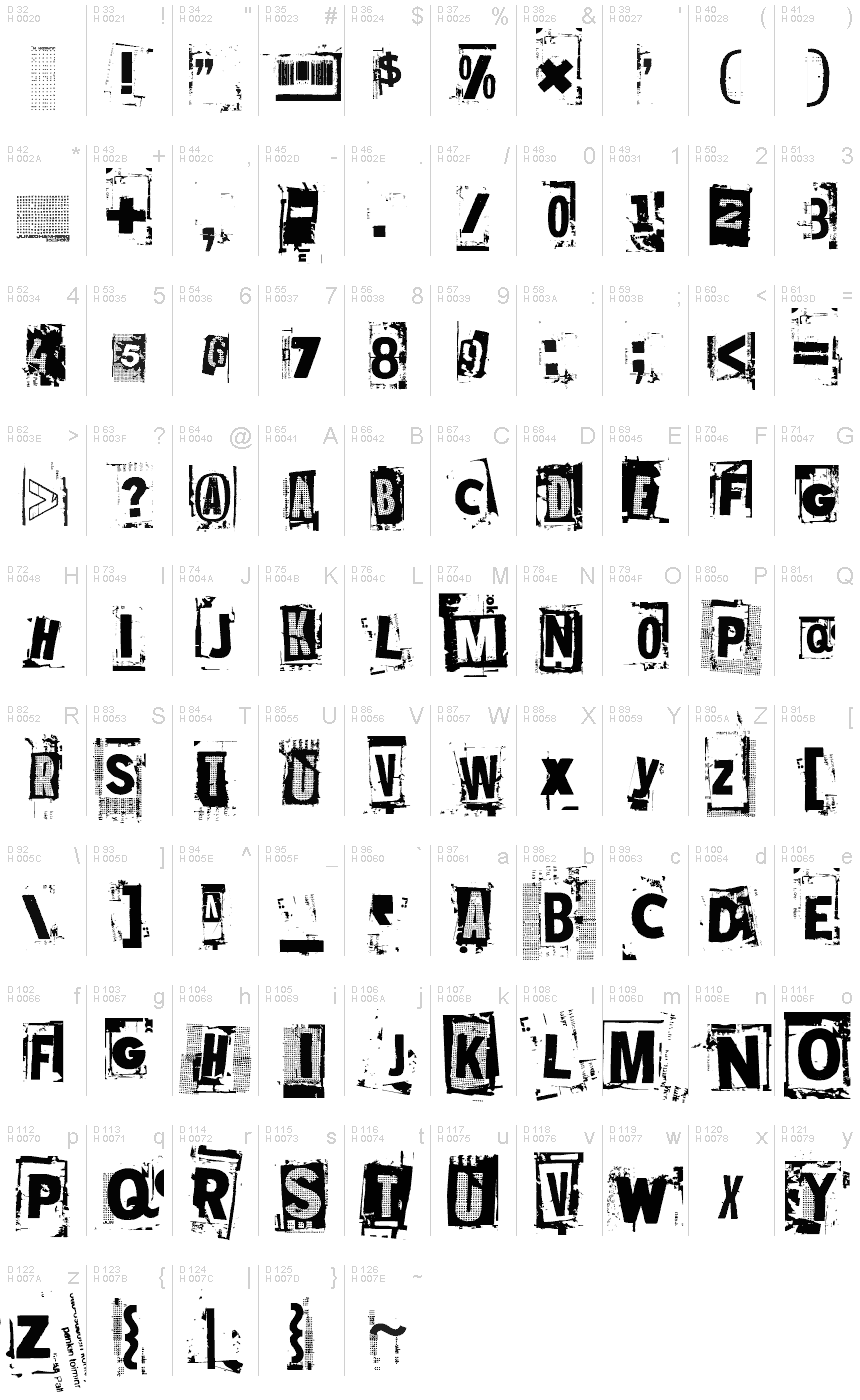
Mustasurma
Mustasurma is a captivating display font that commands attention. Its distorted, grungy aesthetic exudes an edgy, punk-inspired vibe, making it an ideal choice for bold, attention-grabbing designs. The font's irregular letter forms and rough textures lend an air of raw, unapologetic energy, lending themselves well to album covers, event posters, and other high-impact visual applications.
With its striking visual presence, Mustasurma shines in settings where a strong, unconventional typographic statement is desired. Designers seeking to evoke a sense of rebellion, urban grit, or avant-garde sensibilities will find this font a compelling asset in their creative arsenal. Its versatility allows it to seamlessly integrate into various design contexts, from music and fashion to editorial and advertising.